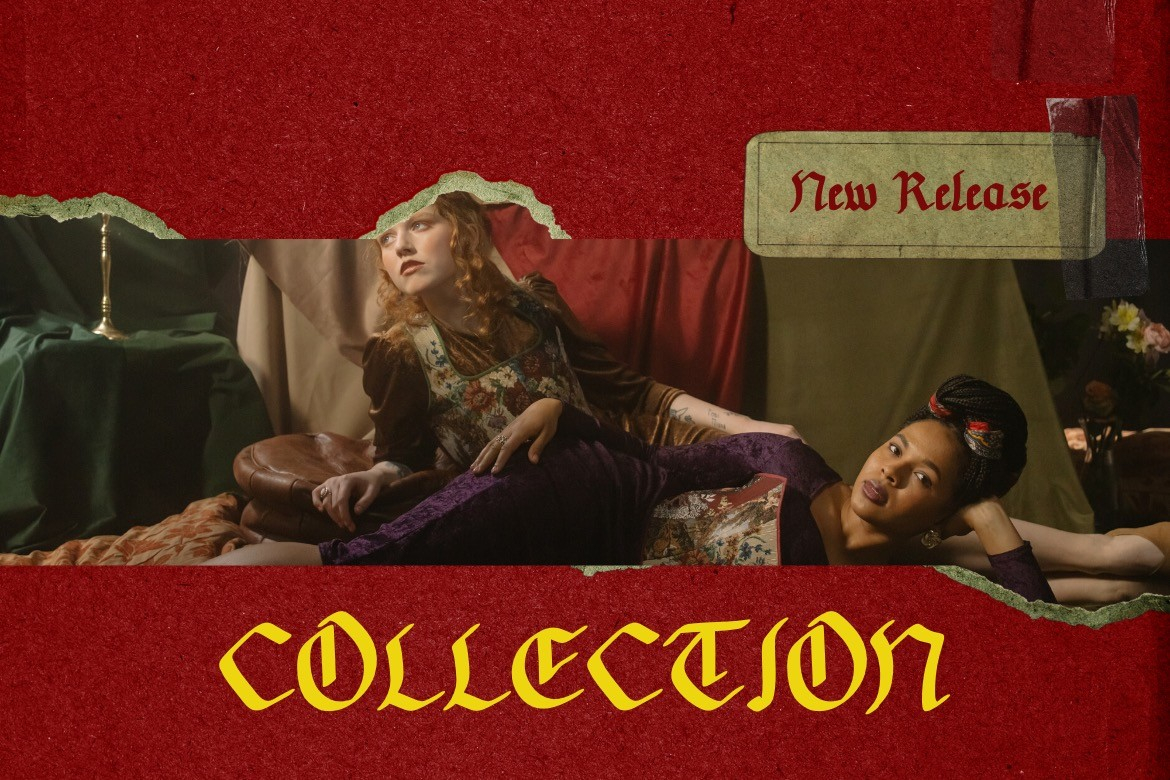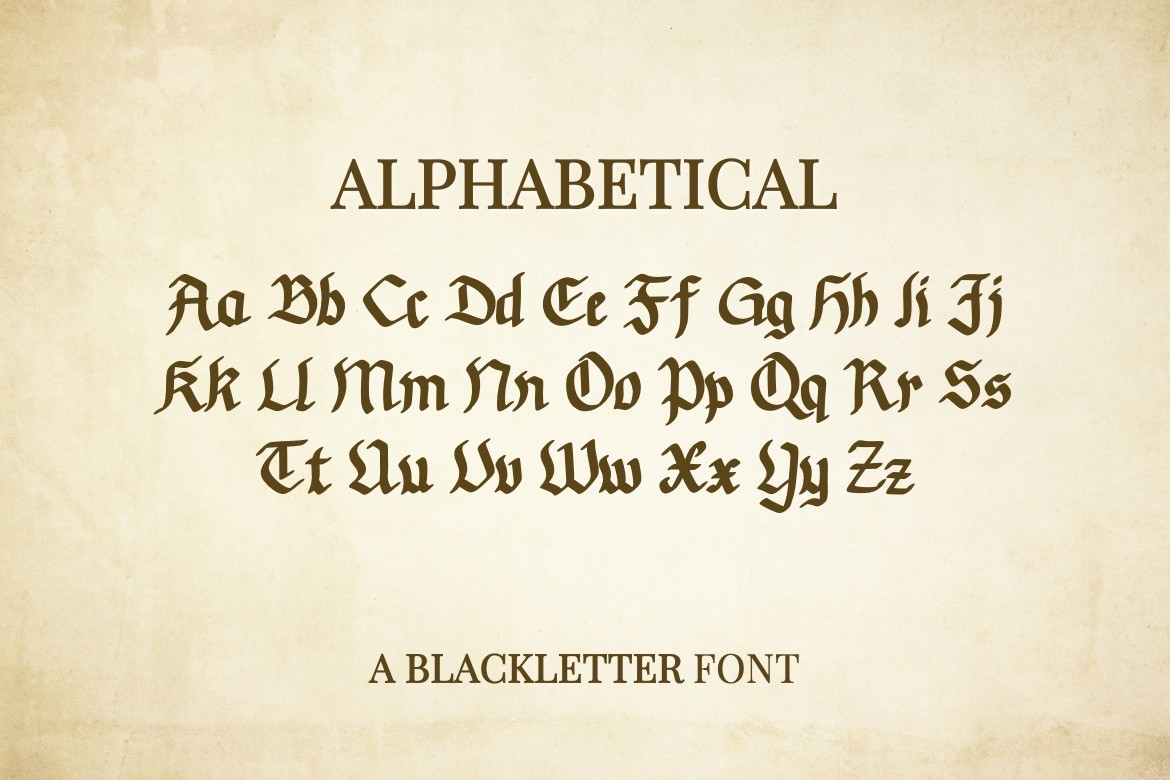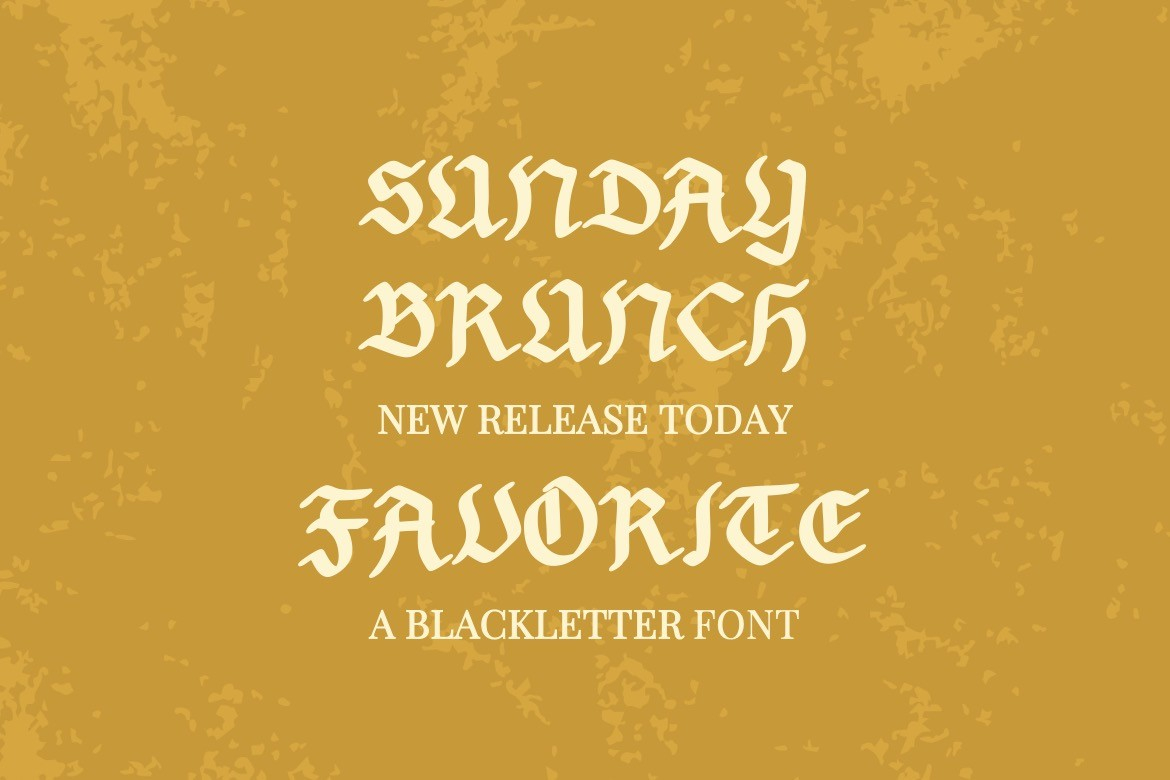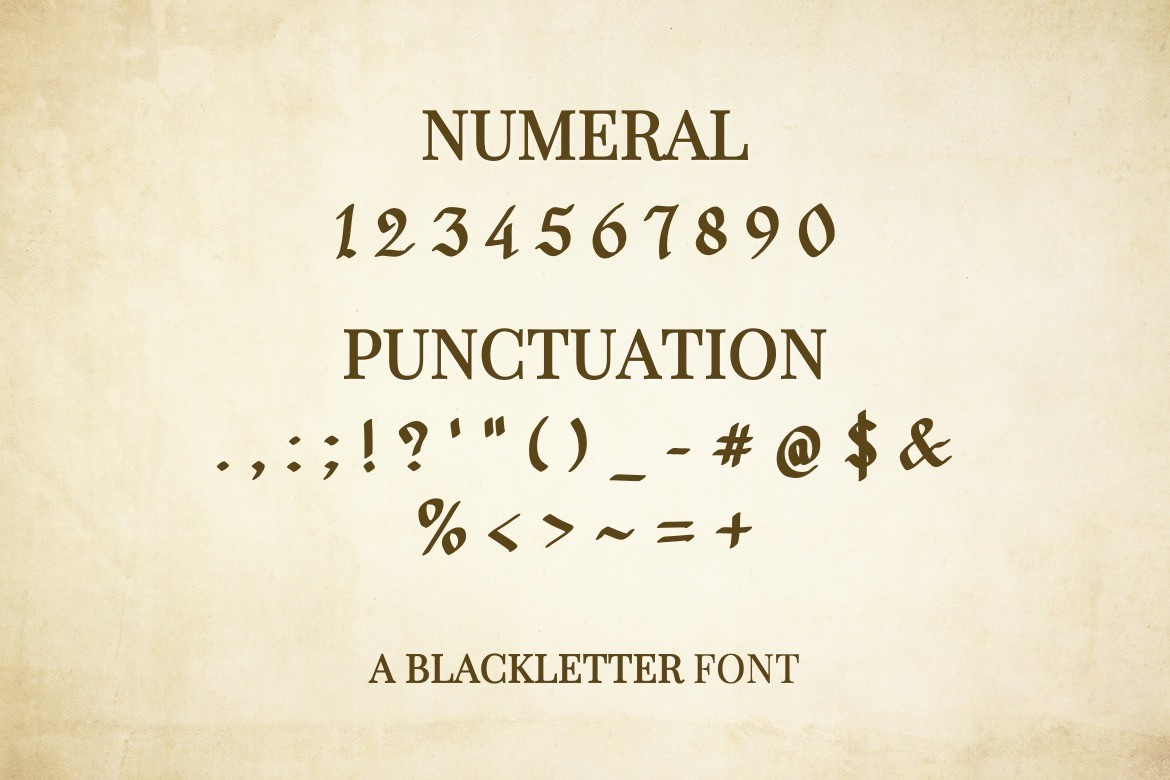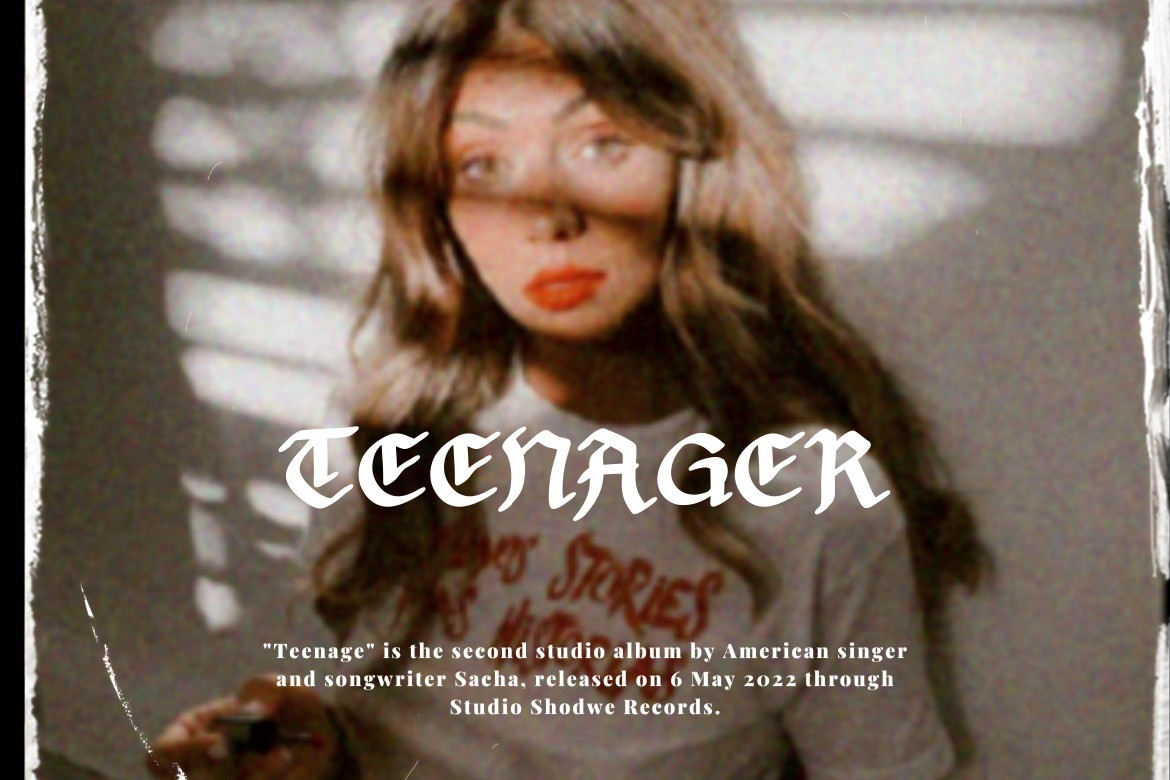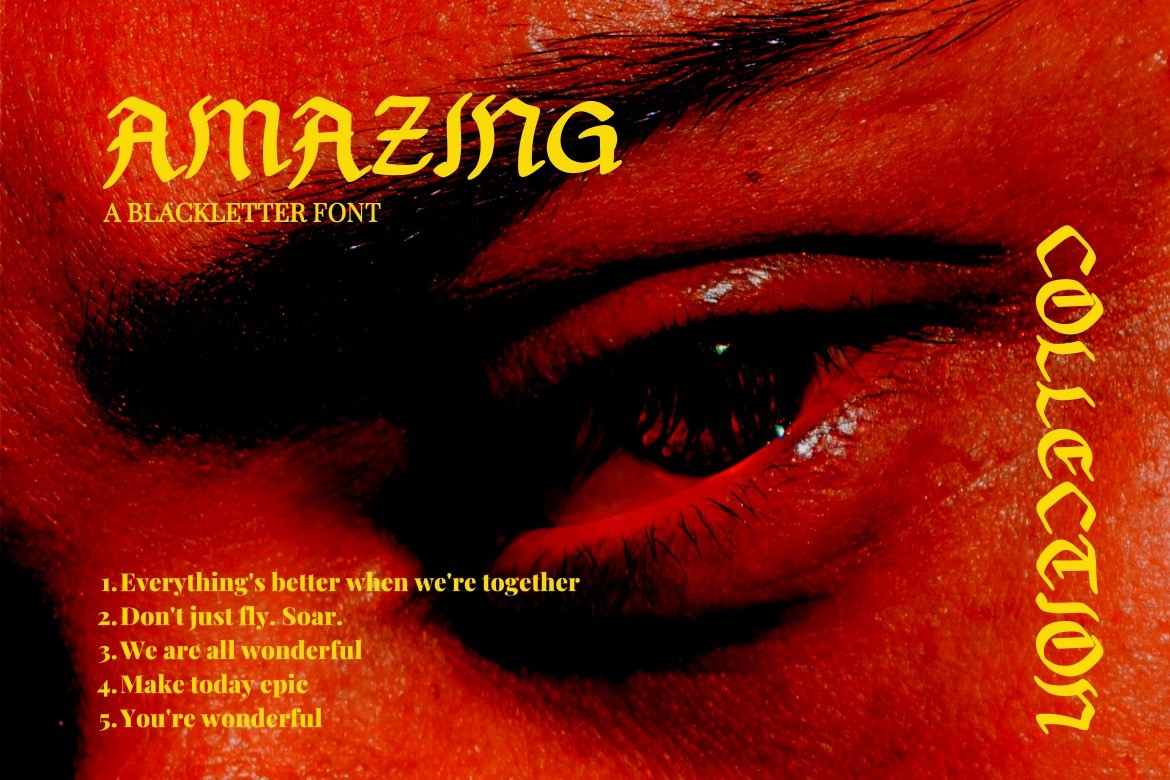
Books Vhasenti Font
About Books Vhasenti Font
Behold the stunning “Books Vhasenti” font! With its bold and intricate strokes, this blackletter font commands attention and exudes a sense of strength and power. Its striking angles and sharp details make it the perfect choice for adding a touch of drama and edge to any design project.